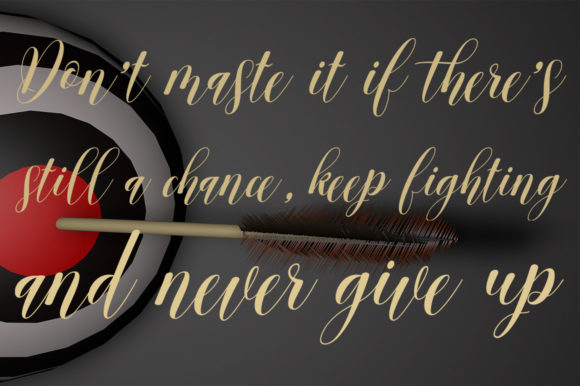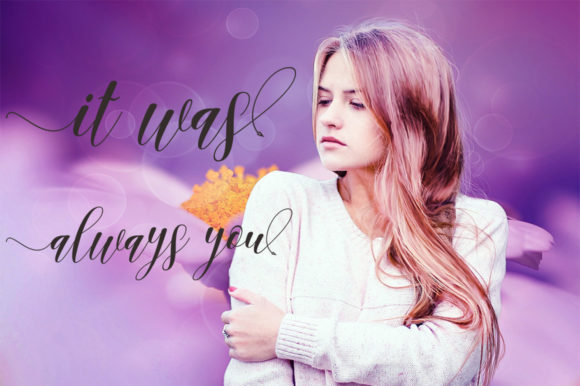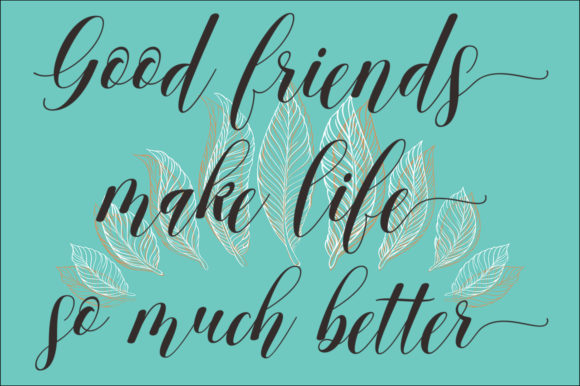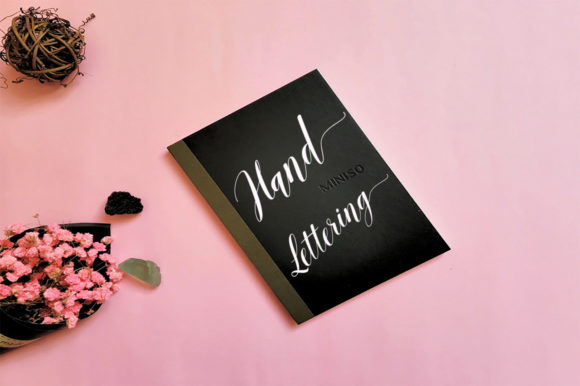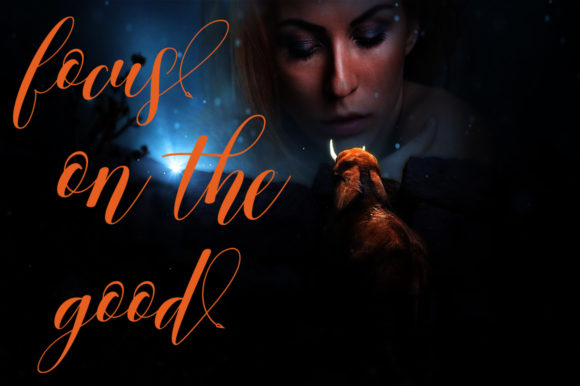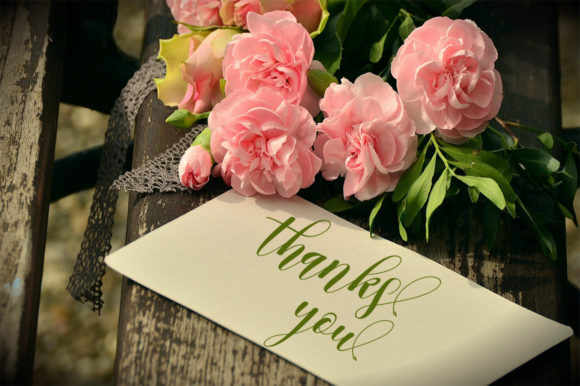
Introducing Archery Script Font: Elevate Your Designs with a Timeless Classic
Are you on the hunt for a font that exudes elegance, sophistication, and a touch of nostalgia? Look no further than the Archery Script Font. This stunning script font is designed to bring a classic vibe to your design projects, making them stand out from the crowd. With its beautiful feel and versatility, Archery Script Font is the perfect choice for designers and crafters looking to add a touch of timeless charm to their work.
The Beauty of Archery Script Font
Archery Script Font is a meticulously crafted font that boasts a range of beautiful features. Its elegant lettering and flowing curves evoke a sense of nostalgia, reminiscent of traditional calligraphy. The font’s classic vibe makes it perfect for a wide range of design projects, from wedding invitations and branding materials to packaging and advertising.
One of the standout features of Archery Script Font is its versatility. The font comes in a range of styles, allowing you to choose the perfect variation to suit your design needs. Whether you’re looking for a bold and dramatic look or a more subtle and understated feel, Archery Script Font has got you covered.
Why Choose Archery Script Font?
So, what sets Archery Script Font apart from other fonts on the market? Here are just a few reasons why designers and crafters are falling in love with this beautiful script font:
- Timeless appeal: Archery Script Font has a timeless quality that ensures your designs will never go out of style.
- Elegant and sophisticated: The font’s classic vibe makes it perfect for high-end branding and design projects.
- Versatile: With a range of styles to choose from, Archery Script Font can be used for a wide range of design projects.
- Easy to read: Despite its elegant and cursive nature, Archery Script Font is surprisingly easy to read, making it perfect for body text and headlines.
Using Archery Script Font in Your Designs
So, how can you use Archery Script Font to elevate your designs? Here are a few ideas to get you started:
- Wedding invitations and stationery: Archery Script Font is perfect for creating beautiful and elegant wedding invitations, save-the-dates, and other stationery.
- Branding and packaging: The font’s classic vibe makes it perfect for high-end branding and packaging design.
- Advertising and marketing: Use Archery Script Font to add a touch of sophistication and elegance to your advertising and marketing materials.
- Signage and display: The font’s bold and dramatic style makes it perfect for signage and display design.
Tips and Tricks for Working with Archery Script Font
Here are a few tips and tricks to help you get the most out of Archery Script Font:
- Experiment with different styles: Archery Script Font comes in a range of styles, so don’t be afraid to experiment and find the one that works best for your design.
- Pair with contrasting fonts: Pair Archery Script Font with contrasting fonts to create visual interest and hierarchy in your design.
- Use for headlines and titles: The font’s elegant and cursive nature makes it perfect for headlines and titles.
- Don’t be afraid to get creative: Archery Script Font is a versatile font that can be used in a wide range of design projects, so don’t be afraid to get creative and try new things.
In conclusion, Archery Script Font is a beautiful and timeless script font that is sure to elevate your designs. With its classic vibe, elegant lettering, and versatility, this font is perfect for designers and crafters looking to add a touch of sophistication and elegance to their work. So why wait? Download Archery Script Font today and start creating stunning designs that will stand out from the crowd!